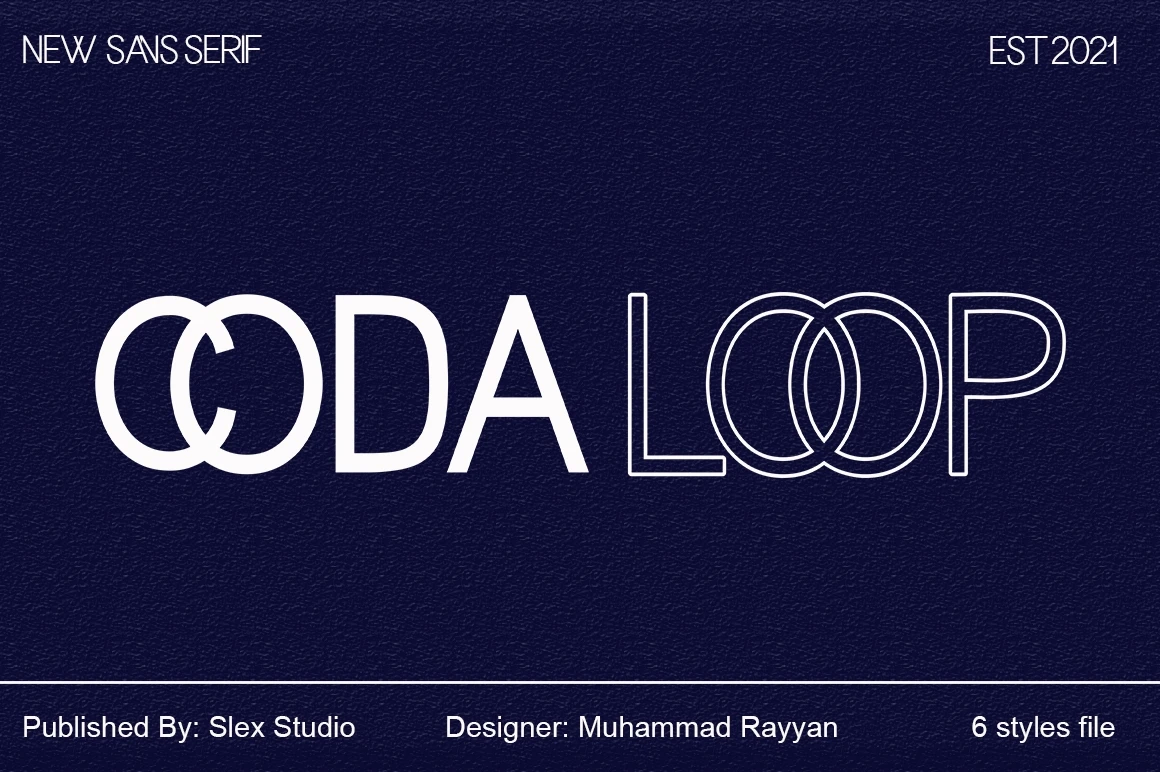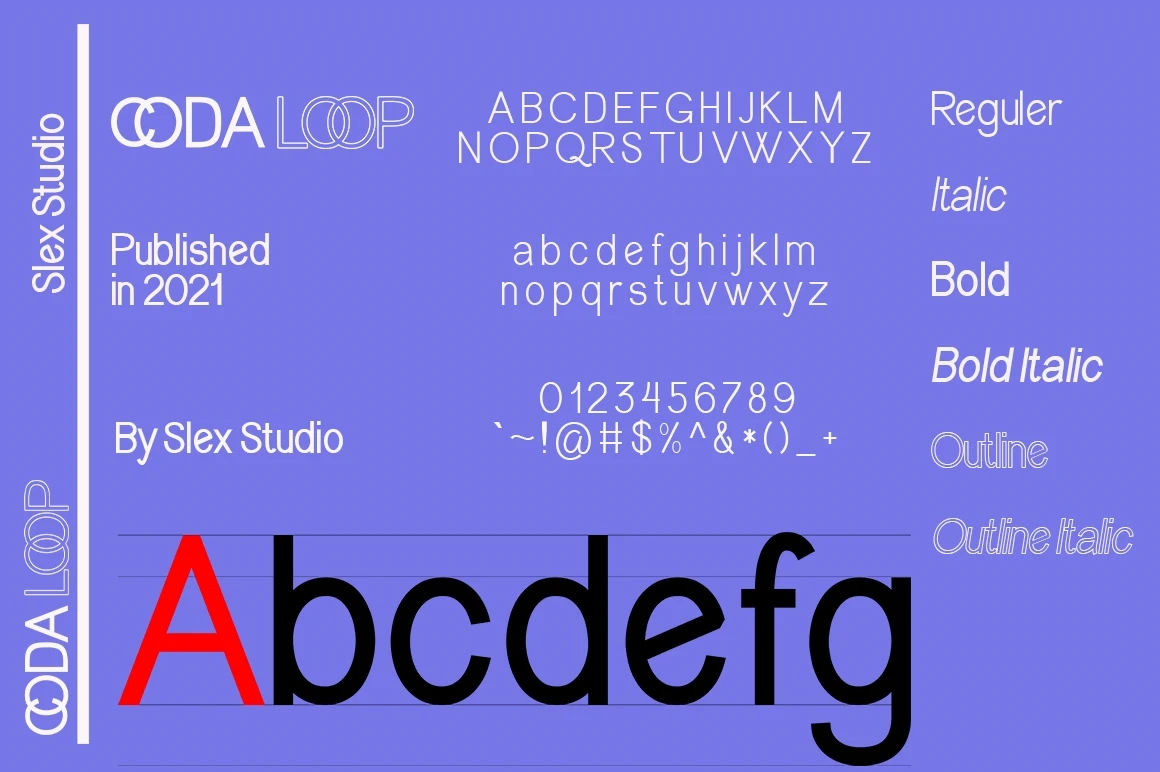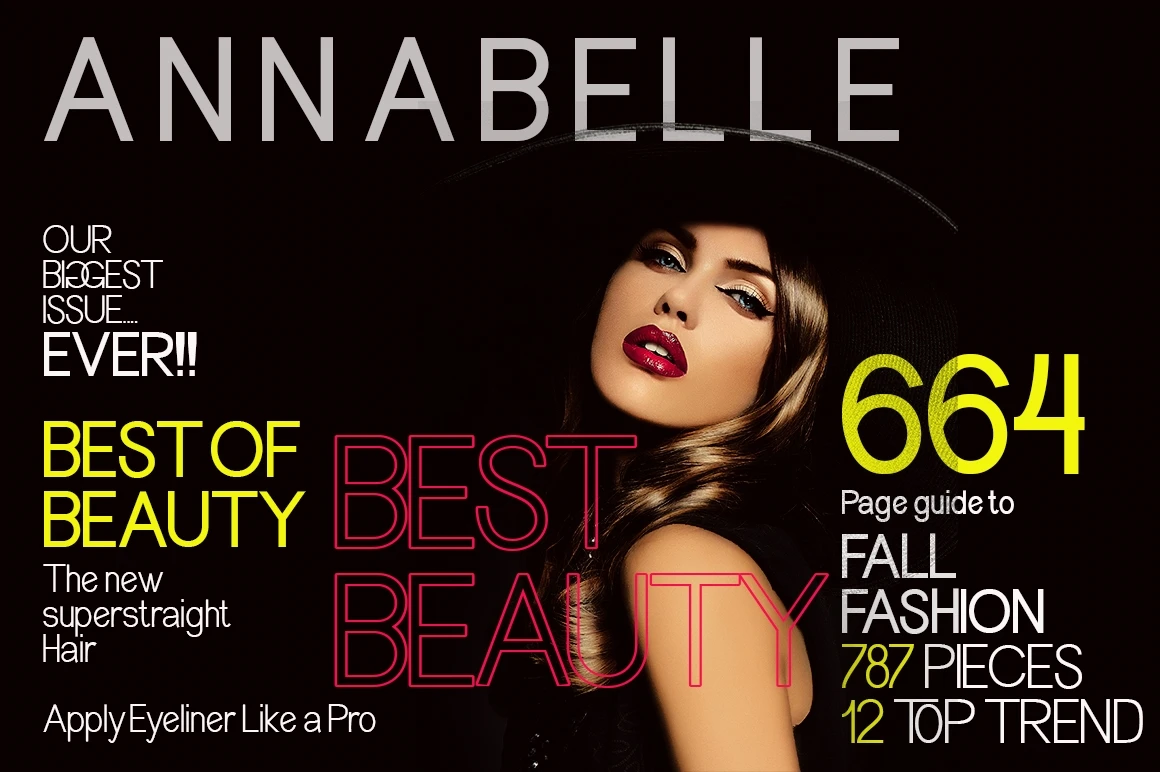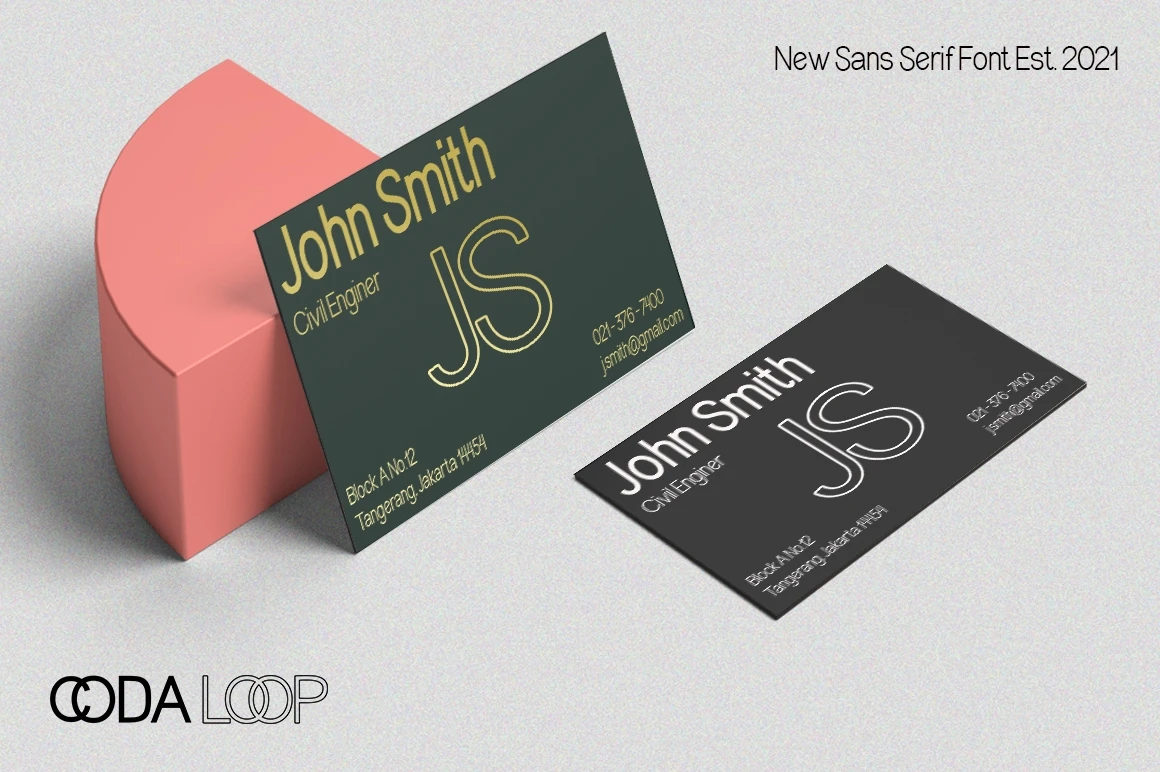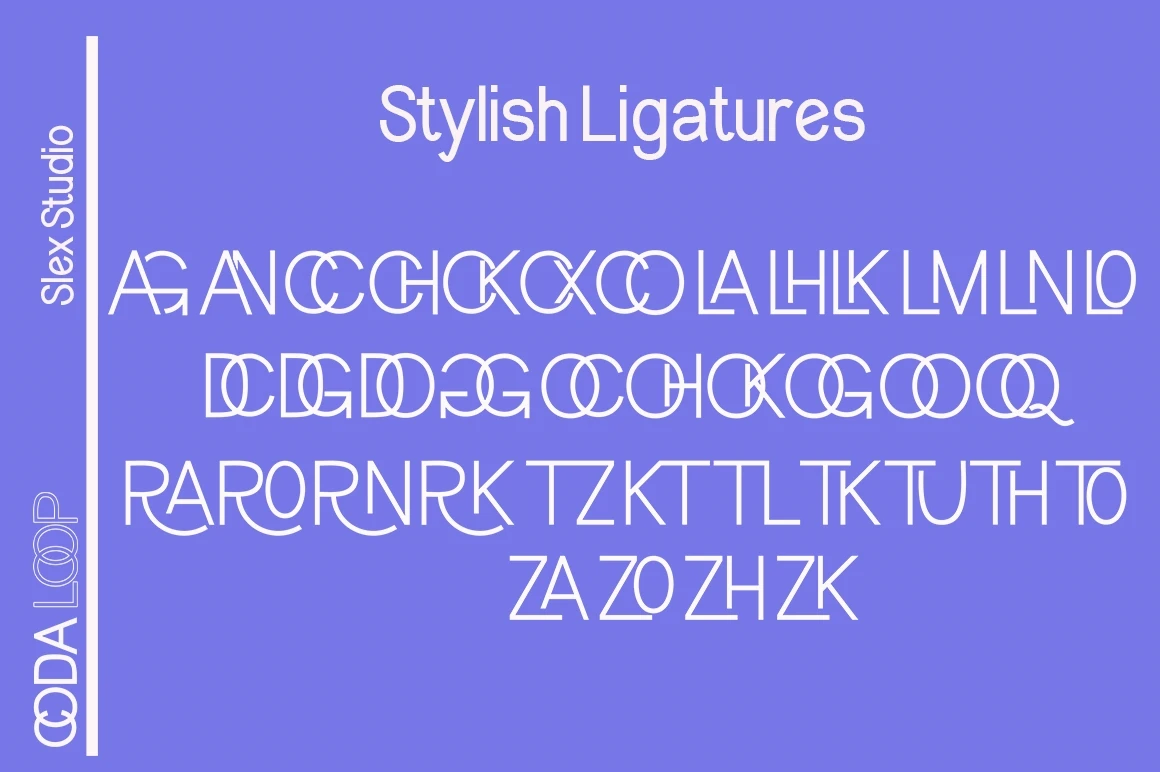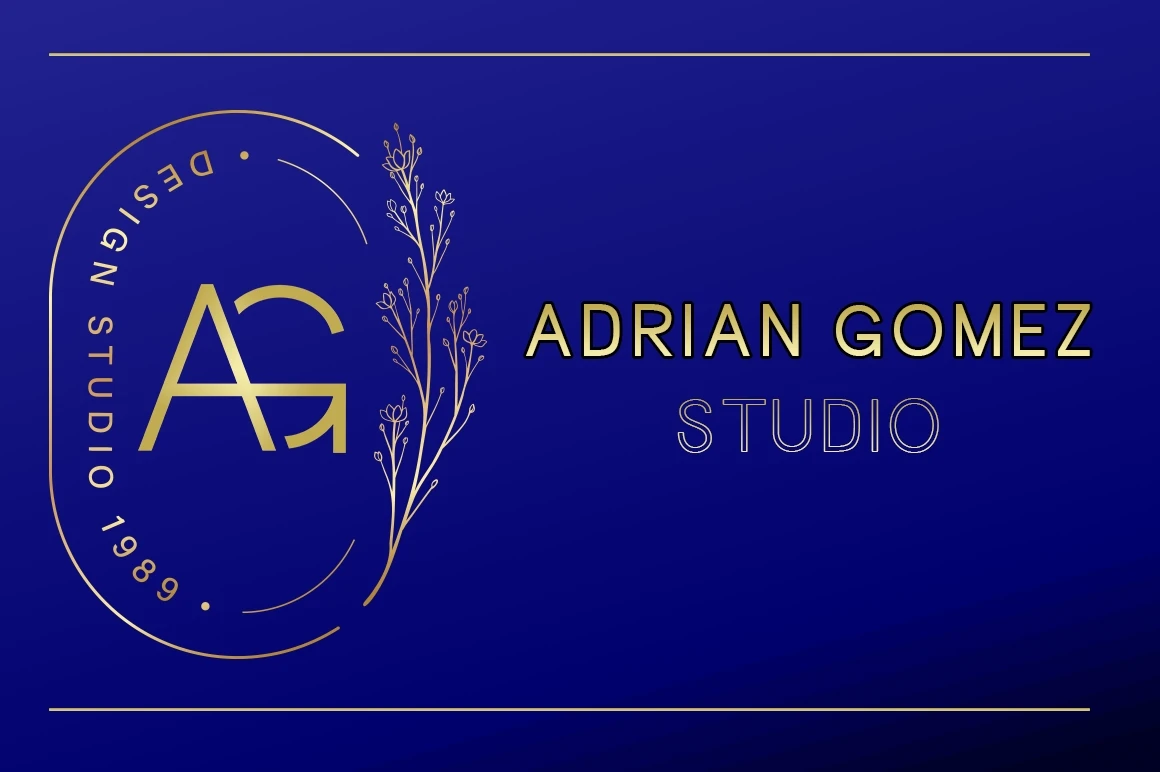
Coda Loop is a Sans Serif font created with balanced line sizes, this font is inspired by Logo which uses block letters.
Coda Loop comes with uppercase, lowercase, numbers, punctuation and so many variations on each character including common ligatures as well as additional strokes to allow you to customize your designs. This font is perfect for Logotypes, Letterheads, Formal Letters, Newspapers, Posters, Clothing Designs, Labels, and more.
OPENTYPE FEATURES
Standard Ligature
Logo ligature.
With 5 different styles:
- Regular
- Italic
- Bold
- Bold Italic
- Outline.